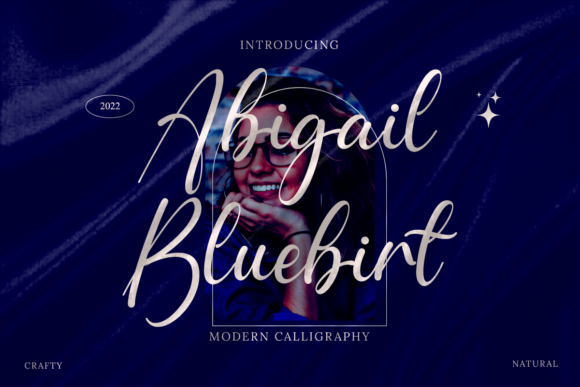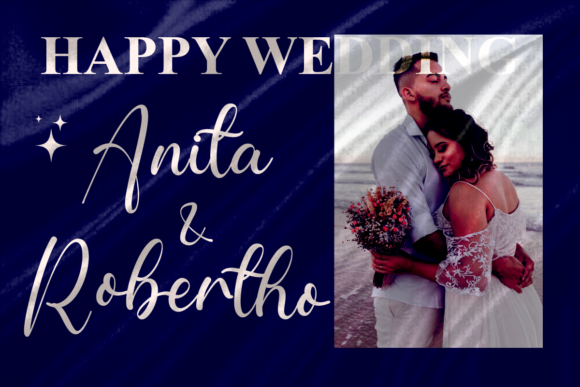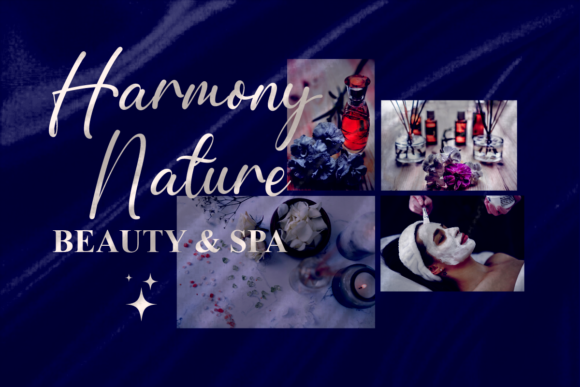
About Abigail Bluebirt Font
Abigail Bluebirt is a cute and charming script font. Whimsical and a bit quirky, this font will brighten up each of your designs. Add it confidently to your projects, and you will love the results.